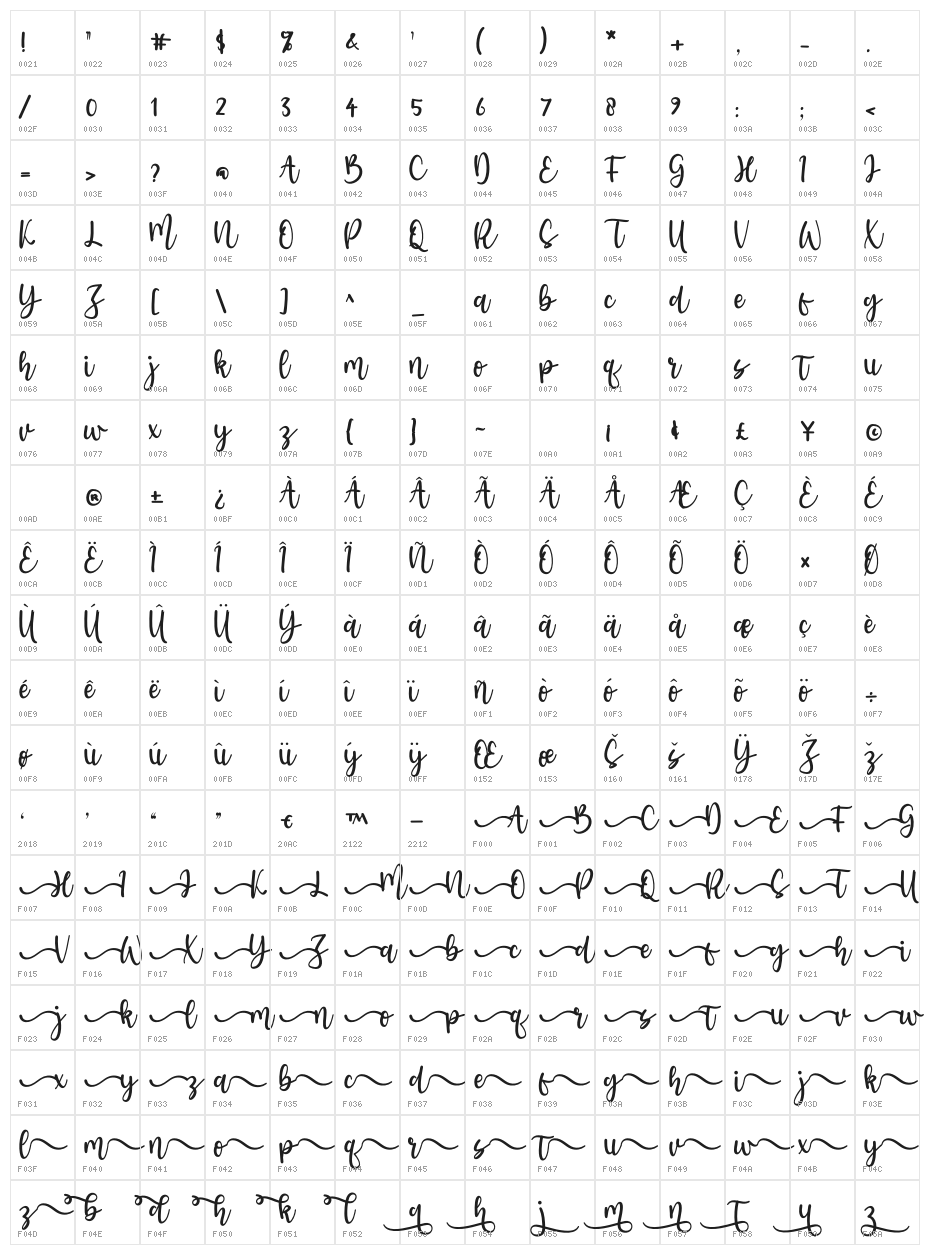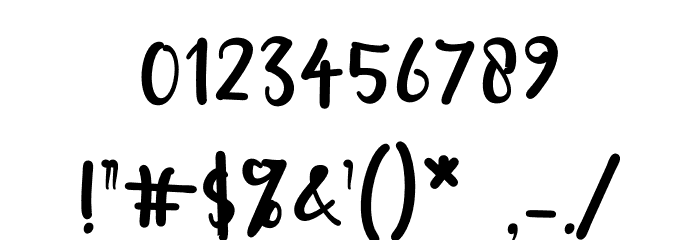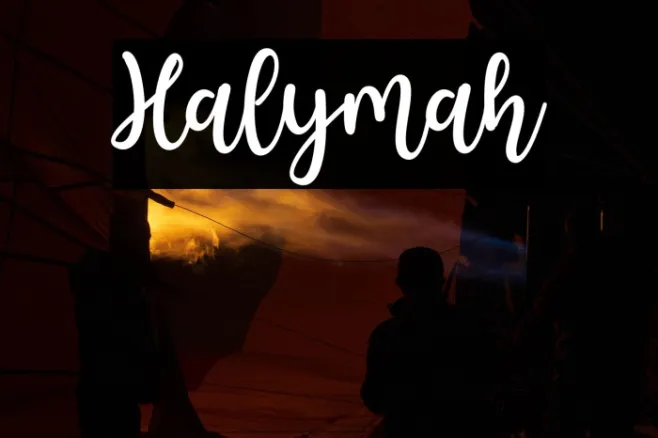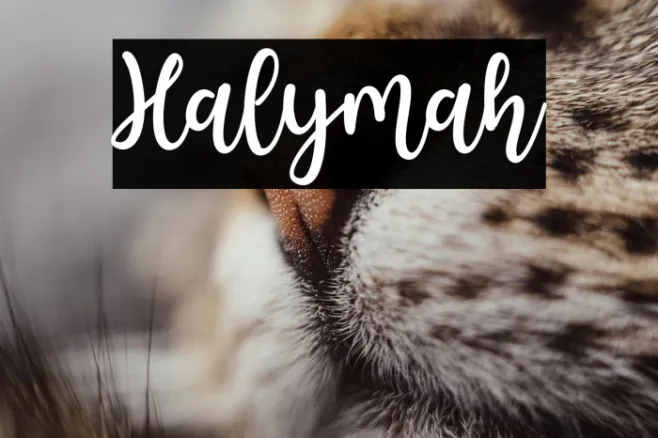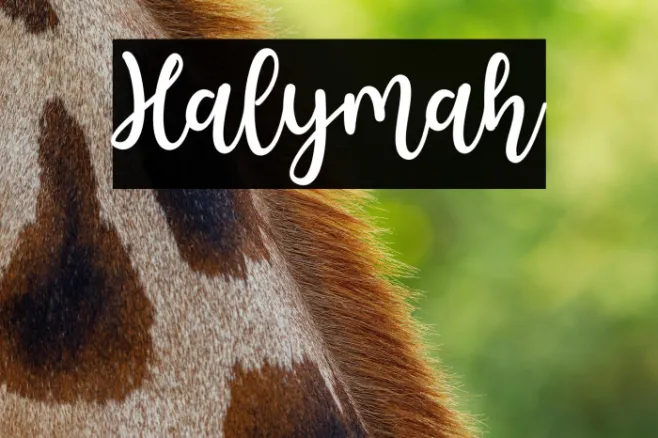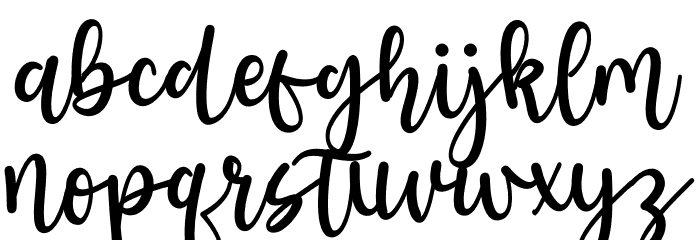
Halymah Font
Halymah Description
This font features a lively and expressive handwritten style, characterized by its bold and flowing script. The letters are connected in a fluid manner, giving it a natural and personal touch. The uppercase letters are slightly more structured, while the lowercase letters exhibit a playful and casual flair. The numbers and special characters maintain the same energetic style, making the font versatile for various creative projects. Its bold strokes and dynamic curves make it stand out, perfect for capturing attention.
| Proposed Projects | Ideal for greeting cards, invitations, branding, and social media graphics. |